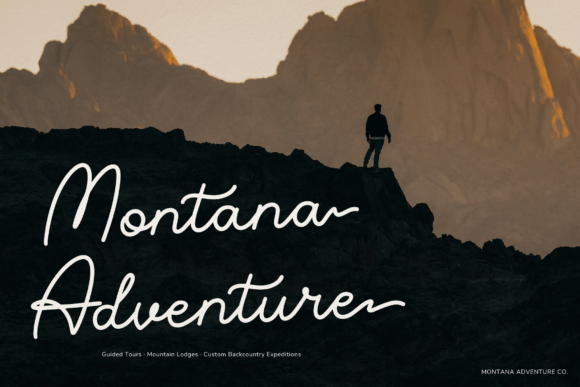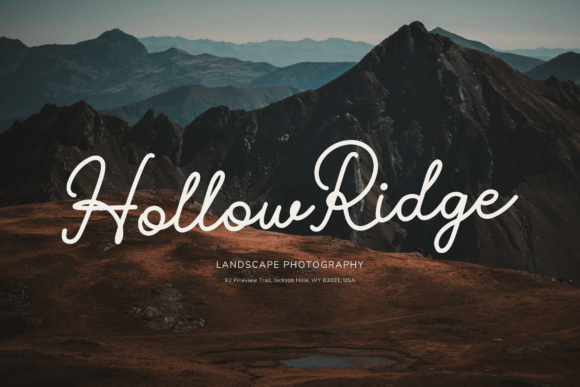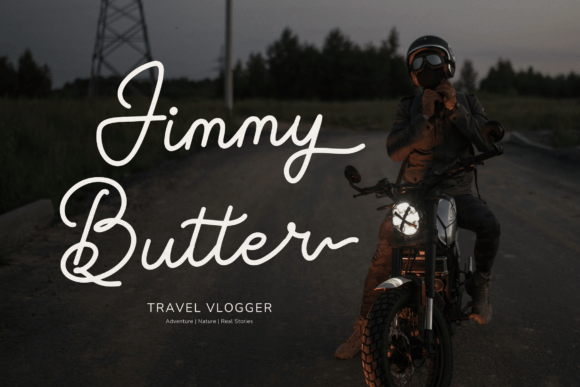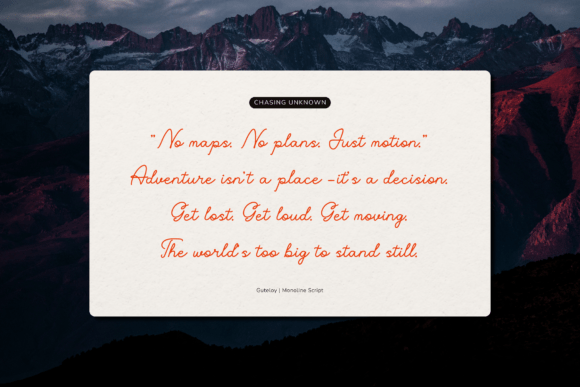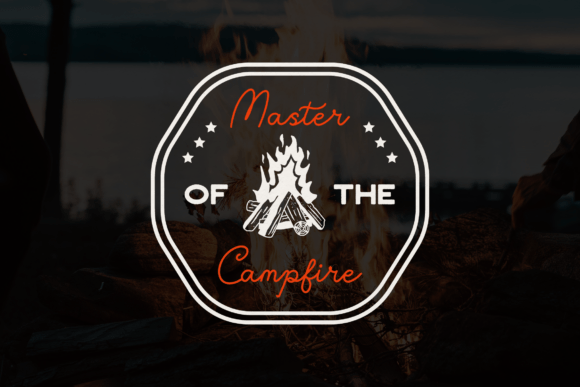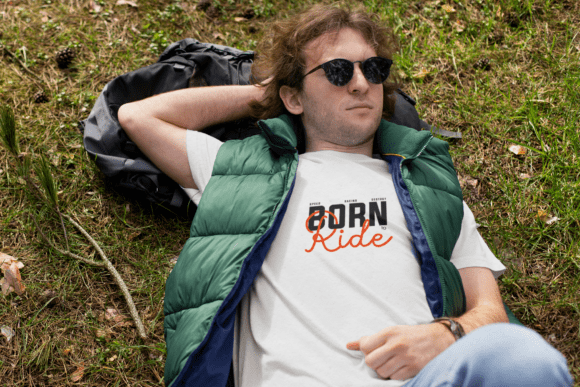
Introducing Guteloy Font: The Ultimate Monoline Script for Effortless Style
In the world of typography, a good font can make all the difference in elevating your design to the next level. For designers and crafters looking for a charming and approachable script font, look no further than Guteloy. This beautiful monoline script font is designed to deliver effortless style and a friendly aesthetic, perfect for a wide range of design applications.
The Characteristics of Guteloy Font
Guteloy is a monoline script font that boasts smooth, single-line strokes, creating a clean and readable look that’s perfect for logos, packaging, quotes, and lifestyle branding. The font’s simplicity and elegance make it an excellent choice for designers who want to add a touch of sophistication to their work. With its charming and approachable feel, Guteloy is sure to capture the attention of your audience and leave a lasting impression.
What Makes Guteloy Stand Out
So, what sets Guteloy apart from other script fonts on the market? Here are just a few of the key features that make this font a standout:
- Over 290 glyphs: Guteloy comes with an impressive range of glyphs, allowing you to create a wide variety of designs and explore different typographic possibilities.
- Multilingual support: This font supports multiple languages, making it an excellent choice for designers who work with international clients or want to create designs that cater to a global audience.
- Handcrafted, polished look: Despite being a digital font, Guteloy has a distinctly handcrafted feel that’s perfect for designers who want to add a touch of personality to their work.
Perfect for a Range of Design Applications
Guteloy is an incredibly versatile font that can be used in a wide range of design applications, including:
- Logos: The font’s clean and elegant lines make it perfect for creating professional logos that are both stylish and memorable.
- Packaging: Guteloy’s friendly aesthetic makes it an excellent choice for packaging design, where you want to create a positive impression and stand out on crowded store shelves.
- Quotes: The font’s smooth, flowing lines make it perfect for creating inspirational quotes, social media graphics, and other typographic designs.
- Lifestyle branding: Guteloy’s approachable feel makes it an excellent choice for lifestyle brands, where you want to create a friendly and welcoming atmosphere.
Why Designers and Crafters Love Guteloy
So, why do designers and crafters love Guteloy? Here are just a few reasons:
- Effortless style: Guteloy delivers effortless style and a friendly aesthetic that’s perfect for designers who want to create beautiful designs without spending hours agonizing over typography.
- Readability: The font’s clean lines and simple strokes make it incredibly readable, even at small sizes.
- Flexibility: With over 290 glyphs and multilingual support, Guteloy is an incredibly flexible font that can be used in a wide range of design applications.
In conclusion, Guteloy is an exceptional monoline script font that’s perfect for designers and crafters looking for a charming and approachable typographic solution. With its smooth, single-line strokes, friendly aesthetic, and impressive range of glyphs, Guteloy is sure to elevate your designs and leave a lasting impression on your audience. Whether you’re creating logos, packaging, quotes, or lifestyle branding, Guteloy is an excellent choice that’s sure to deliver effortless style and sophistication.